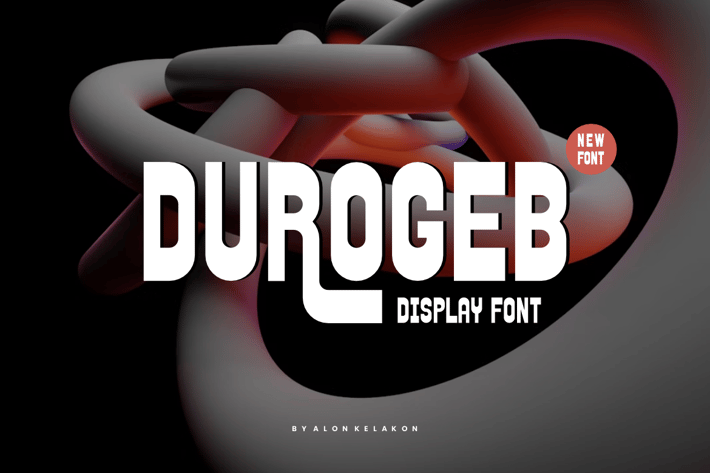
Durogeb Display Font
Durogeb Display Font Font is unique . Ready to use for your design like labeling, movie sceen, poster, movie title, gigs, album covers, logos, and much more.